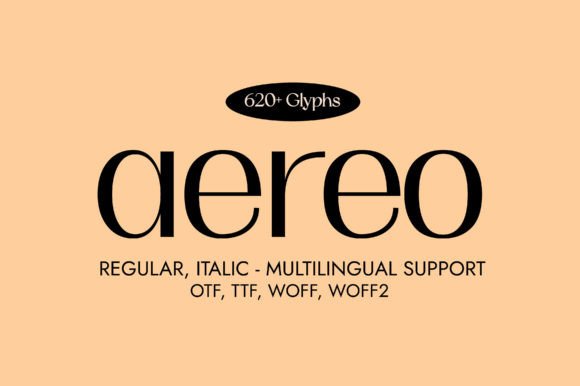
Aereo Font: The Ultimate Sans Serif Typeface for Modern Designers
In the world of typography, a font can make all the difference in the success of a design project. With the right typeface, you can convey your message with clarity, elegance, and sophistication. Introducing Aereo, the ultimate sans serif typeface designed specifically for modern designers like you. With its minimalist, elegant, and chic design, Aereo is the perfect choice for your next project.
Key Features of Aereo Font
- Over 620 glyphs: Aereo boasts an impressive collection of over 620 glyphs, making it a versatile and comprehensive typeface.
- Multilingual support: With Aereo, you can communicate your message clearly to a global audience, thanks to its extensive multilingual support.
- Minimalist and elegant design: Aereo’s clean lines and minimalist design make it perfect for a wide range of applications, from logos to websites and print materials.
- Versatility: Aereo’s flexibility allows you to use it for various design projects, ensuring consistency and professionalism.
Ideal Design Applications for Aereo Font
Aereo’s versatility and clean design make it suitable for various applications, including:
- Logo design: Create a lasting impression with Aereo’s elegant and modern design, perfect for logos that require a touch of sophistication.
- Website design: Enhance your website’s typography with Aereo’s clean lines and multilingual support, ensuring a seamless user experience.
- Print materials: Use Aereo for brochures, flyers, posters, and other print materials, where its minimalist design and elegance can shine.
The Power of Multilingual Support
In today’s globalized world, communicating with a diverse audience is crucial. Aereo’s multilingual support ensures that your message can be understood by people from different parts of the world. With Aereo, you can:
- Reach a broader audience: Expand your reach and connect with people who speak different languages.
- Enhance global communication: Use Aereo to communicate your message clearly, regardless of your audience’s location.
- Show cultural sensitivity: Demonstrate your attention to detail and cultural awareness by using a typeface that supports multiple languages.
Typography Tips for Using Aereo Font
To get the most out of Aereo, consider the following typography tips:
- Use Aereo for headlines and body text: Take advantage of Aereo’s versatility and use it for both headlines and body text.
- Experiment with font sizes and weights: Aereo’s clean design and range of weights make it perfect for experimenting with different font sizes and weights.
- Pair Aereo with other fonts: Combine Aereo with other fonts to create a unique and visually appealing typography scheme.
Why Choose Aereo Font?
With so many typefaces available, why choose Aereo? Here are just a few reasons:
- Unique design: Aereo’s minimalist and elegant design sets it apart from other typefaces.
- Versatility: Aereo’s extensive character set and multilingual support make it perfect for a wide range of applications.
- Ease of use: Aereo’s clean design and simple typography make it easy to use and navigate.
In conclusion, Aereo is the ultimate sans serif typeface for modern designers. With its minimalist, elegant, and chic design, Aereo is perfect for a wide range of applications. Its extensive character set, multilingual support, and versatility make it an ideal choice for any design project. Try Aereo today and experience the power of this stunning typeface for yourself.